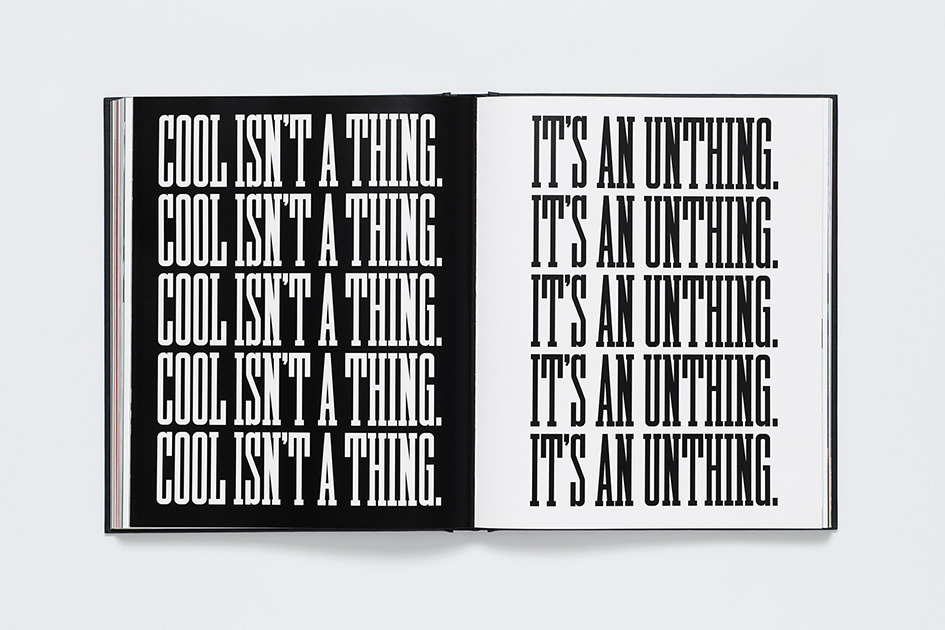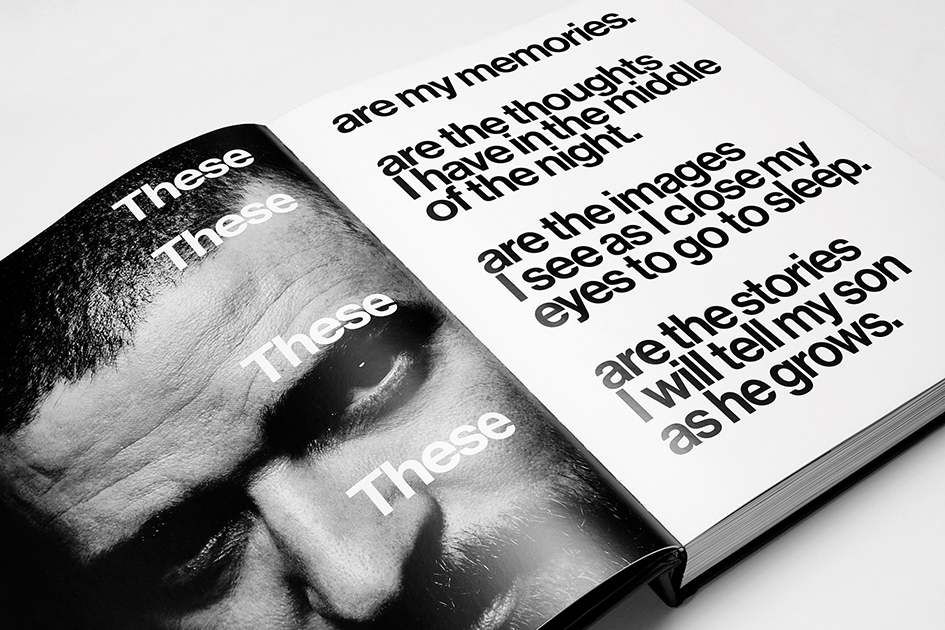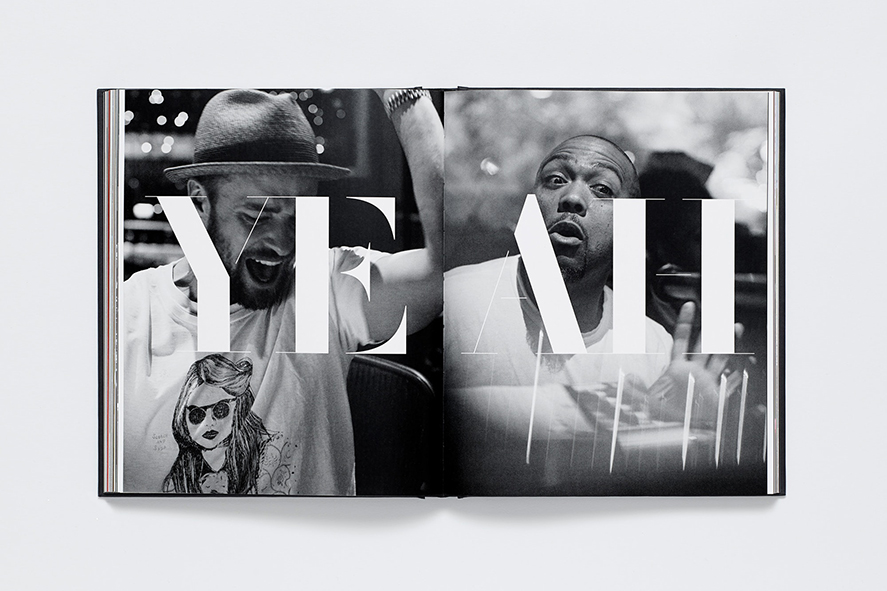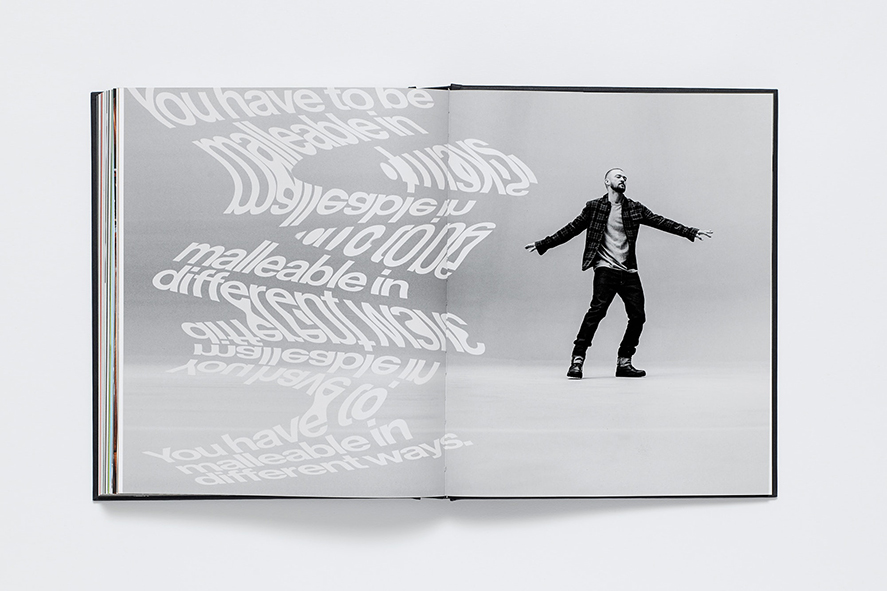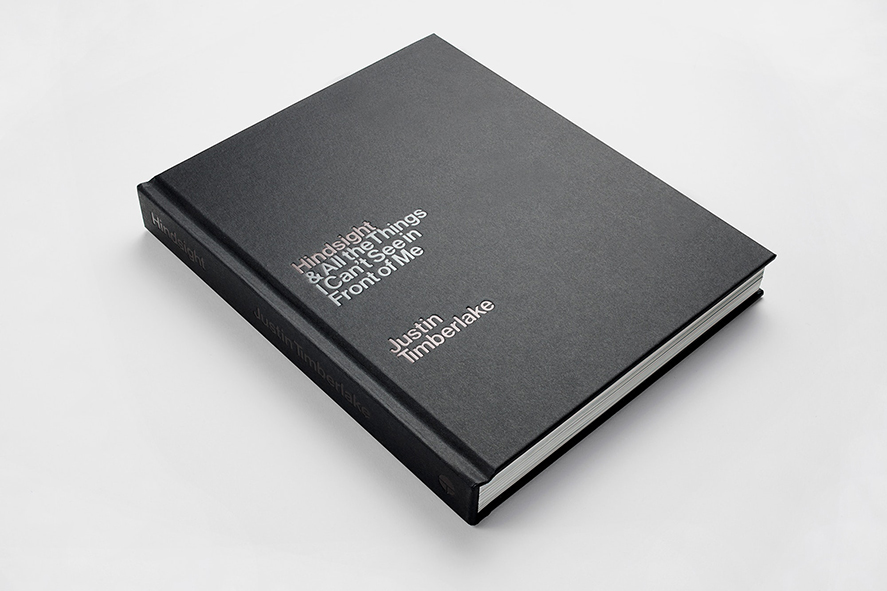
30 typefaces and more: Pentagram X Justin Timberlake's Hindsight is an ode to graphic design
Published by Harper Design and with Pentagram’s design all over it the award-winning musician and actor Justin Timberlake's first book, Hindsight & All the Things I Can’t See in Front of Me is filled with type.
"The book offers insight into Timberlake's creative process and inspirations, illustrated with over 250 images including photographs from his personal archives, many never before published. Pentagram’s design for the book captures the breadth and variety of the multi-talented performer's career, 'remixing' his story with type and image―including over 30 different typefaces.
Pentagram collaborated closely on the project with Timberlake and Harper Design Executive Editor Elizabeth Viscott Sullivan, as well as Rachael Yarbrough, his long-standing photographer (and also his cousin), who shot the cover and helped with photo research, and David Cho, his creative director. Timberlake is known for his sharp visual style and was actively engaged in the design process, working with the team to select images and typography" notes the multi awarded design studio.
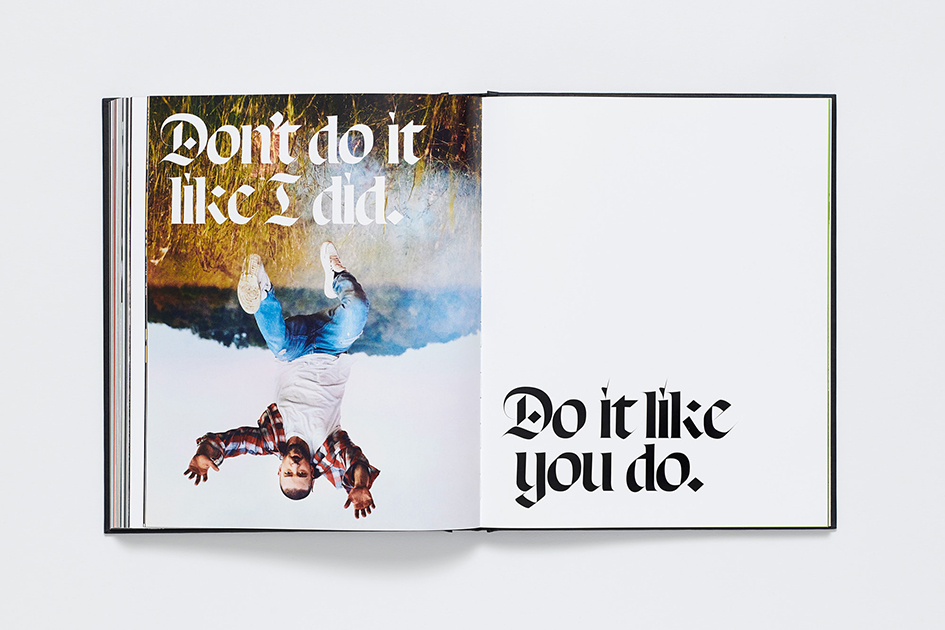
"The Pentagram team developed a design that is characteristically dynamic, elegant and playful, fusing text and image to evoke the many facets of Timberlake’s career and the excitement of his performances. Each chapter is given its own distinctive type treatment, riffing on the subject at hand with fonts that range from scanned specimens of American wood type (a nod to Timberlake’s Memphis roots) to new custom typefaces, including one that is hand-drawn, inspired by Timberlake writing lyrics while recording. Spreads and sequences are devoted to iconic songs and videos... as well as quiet moments, like blank pages illustrating the importance of silence in a song".